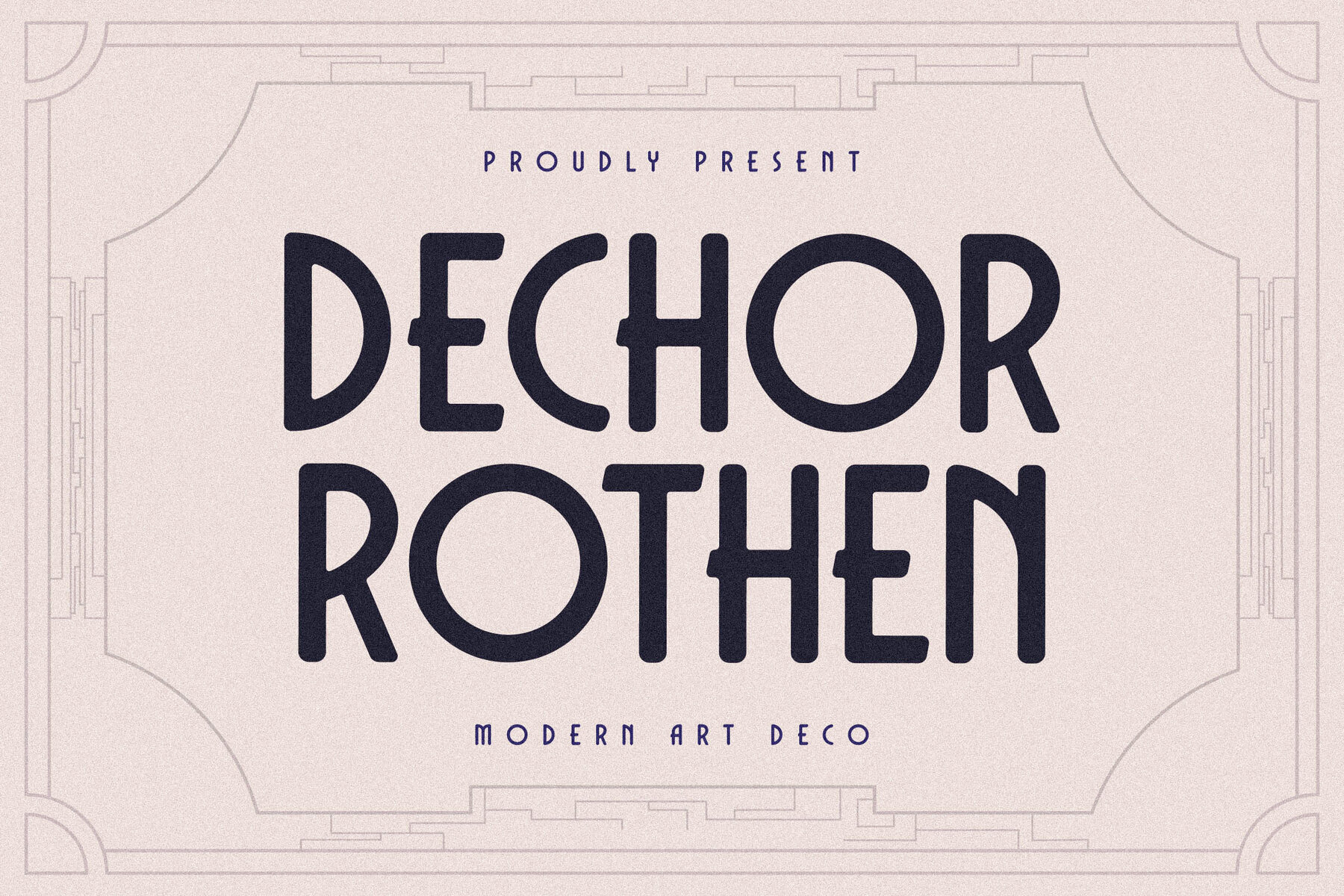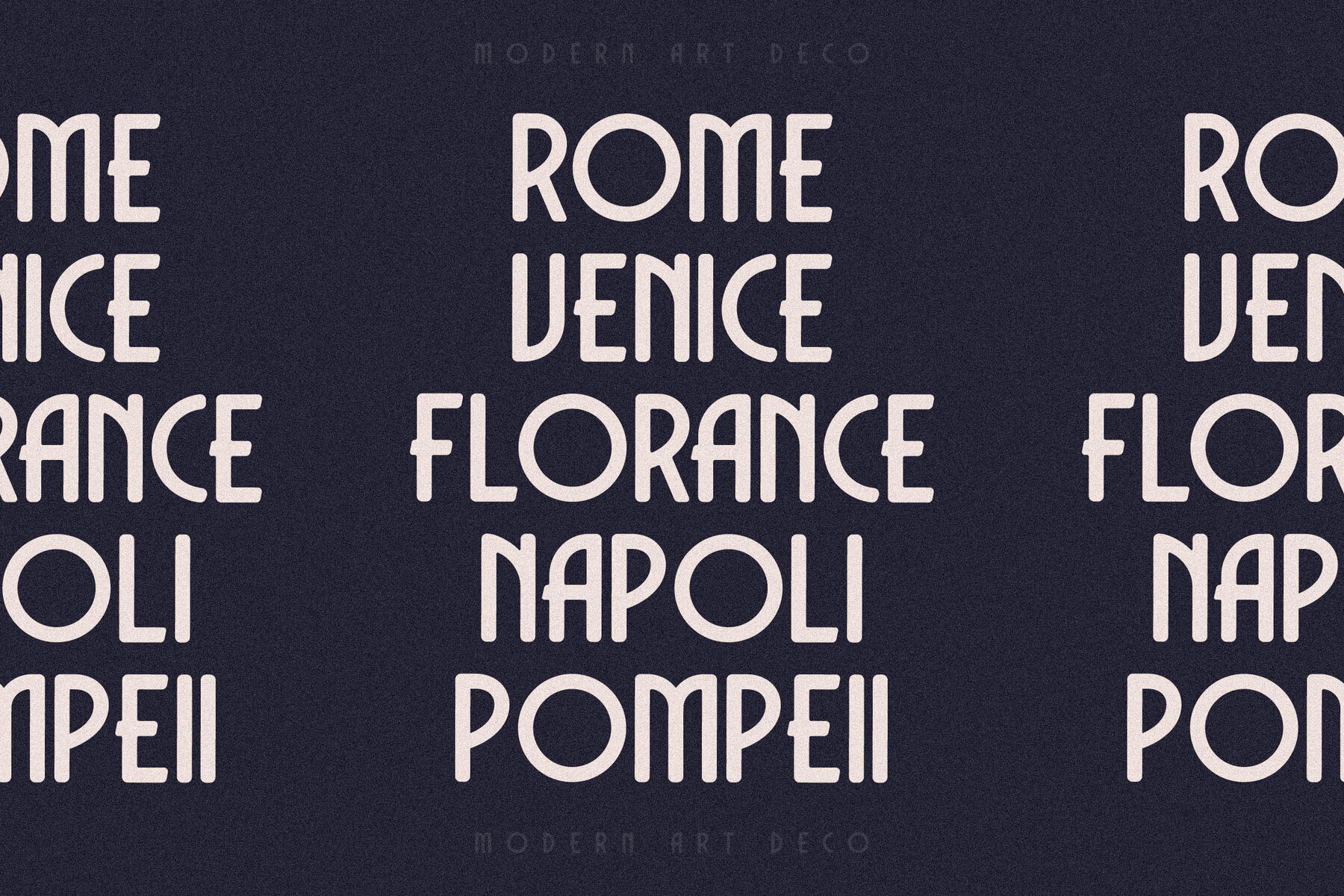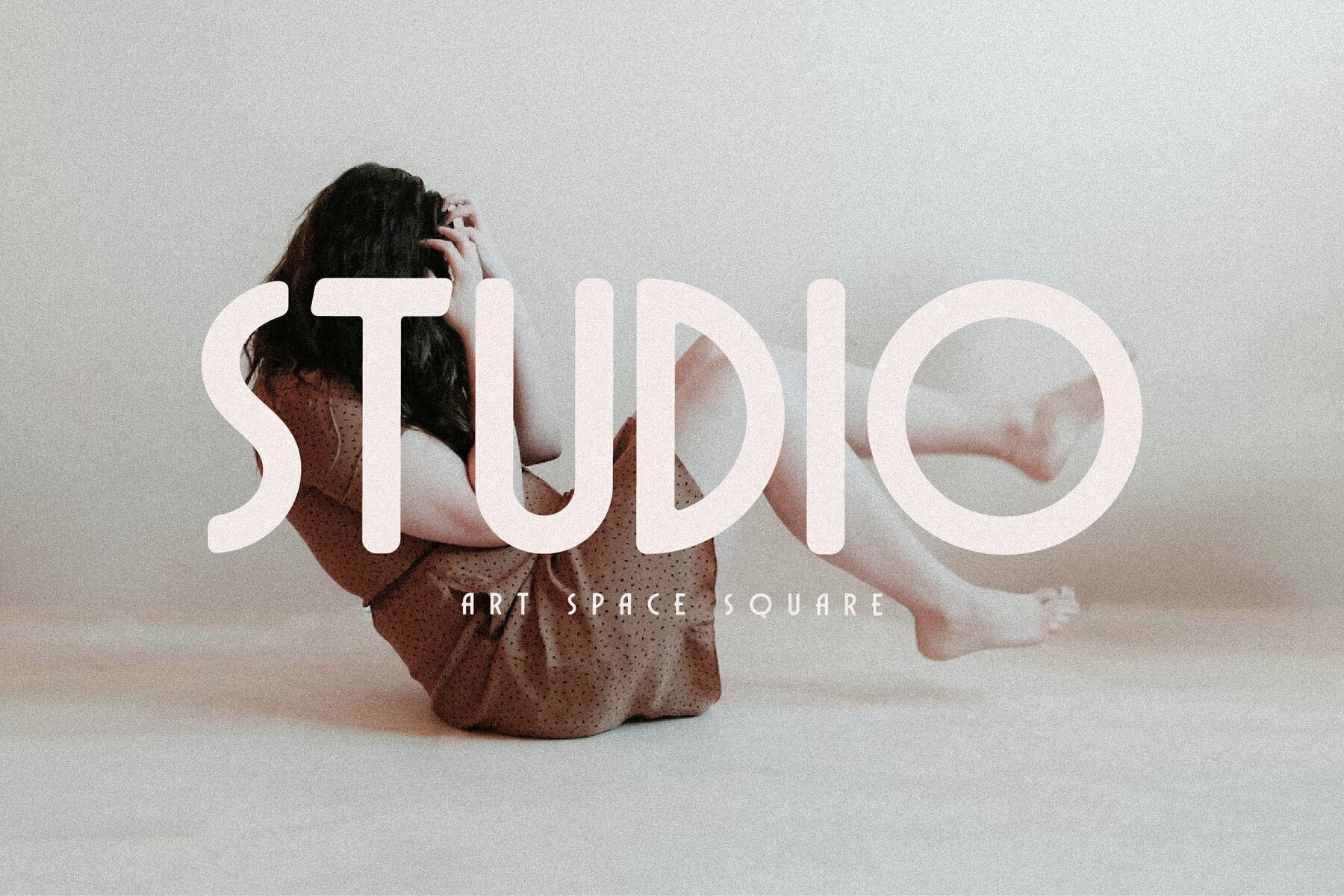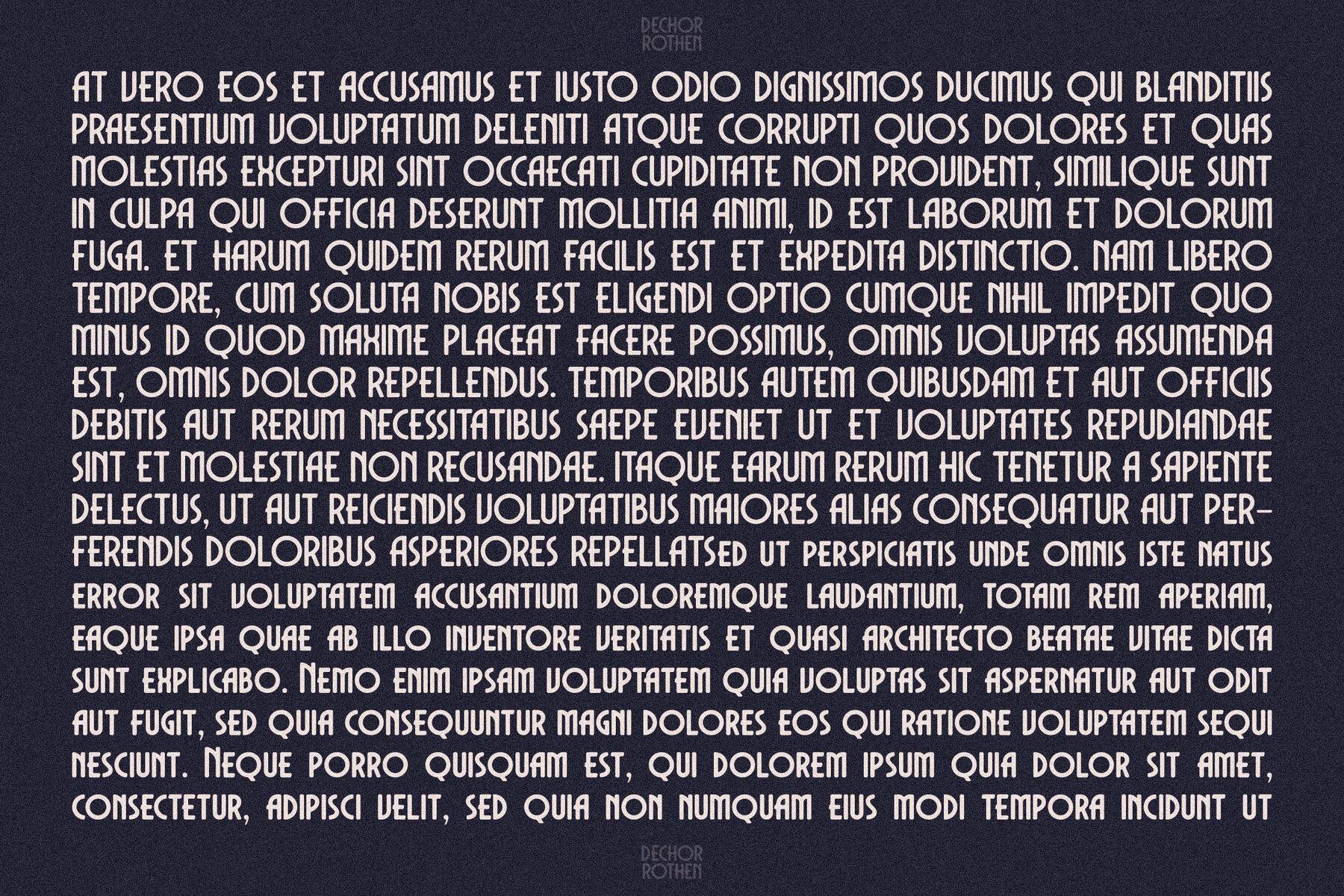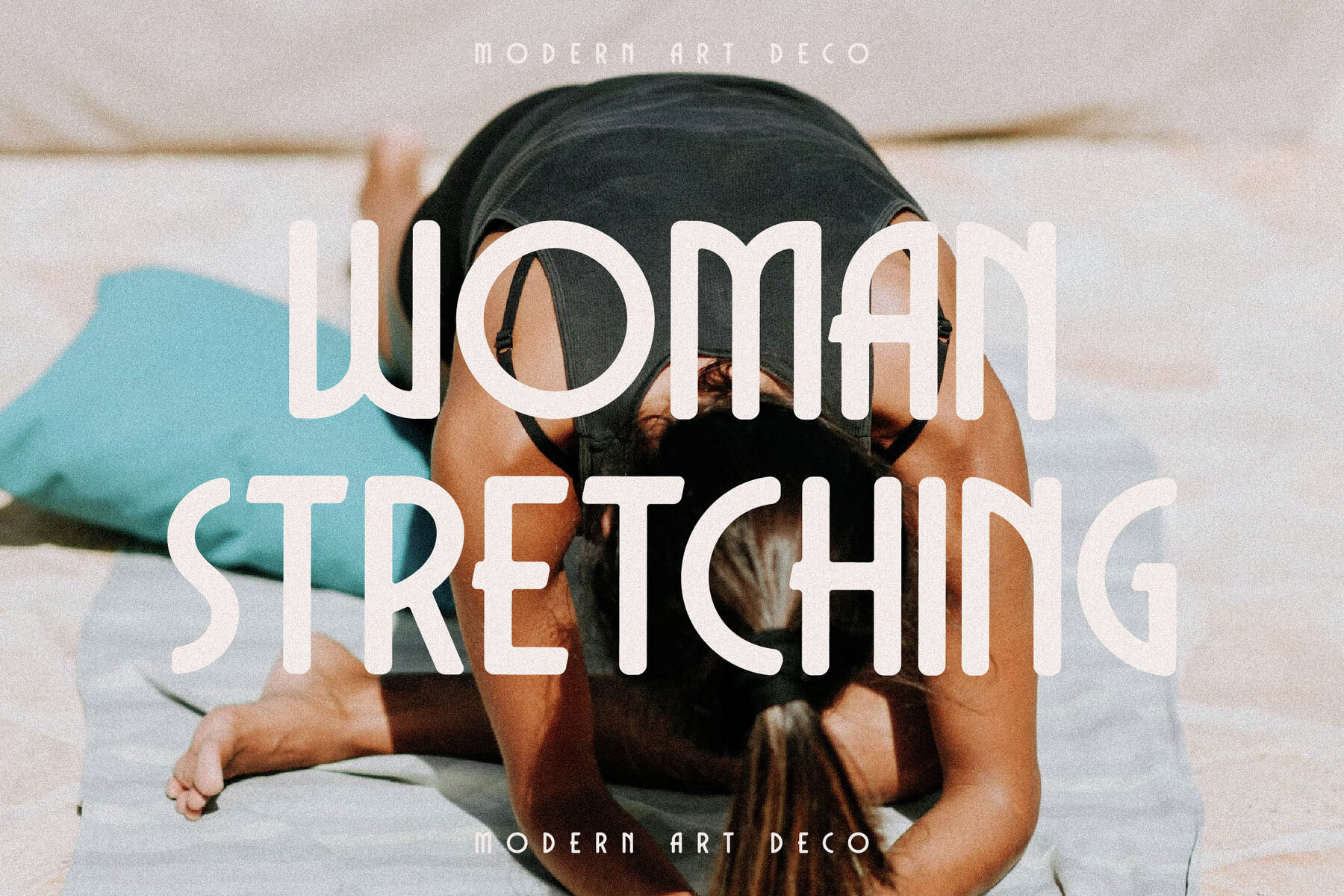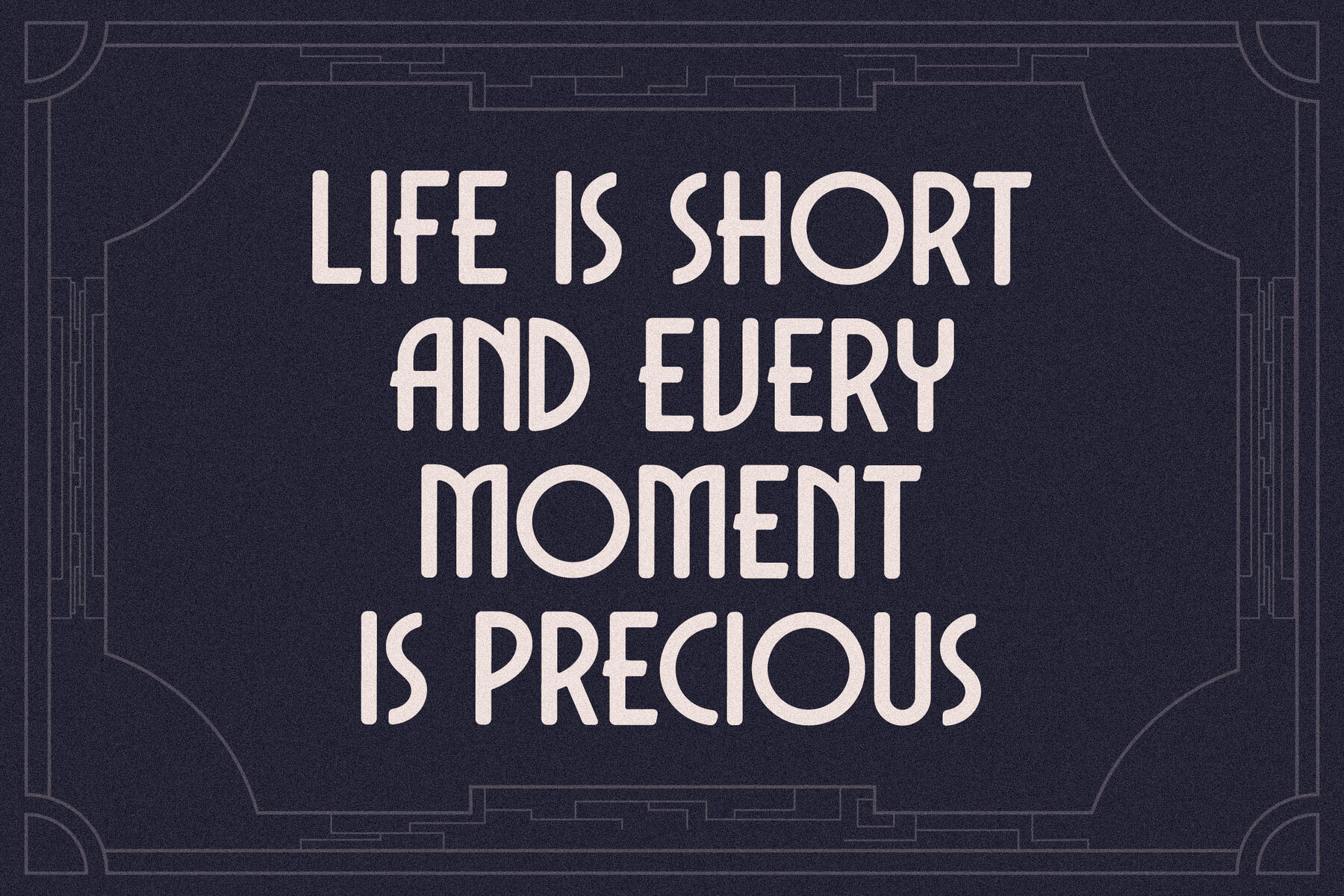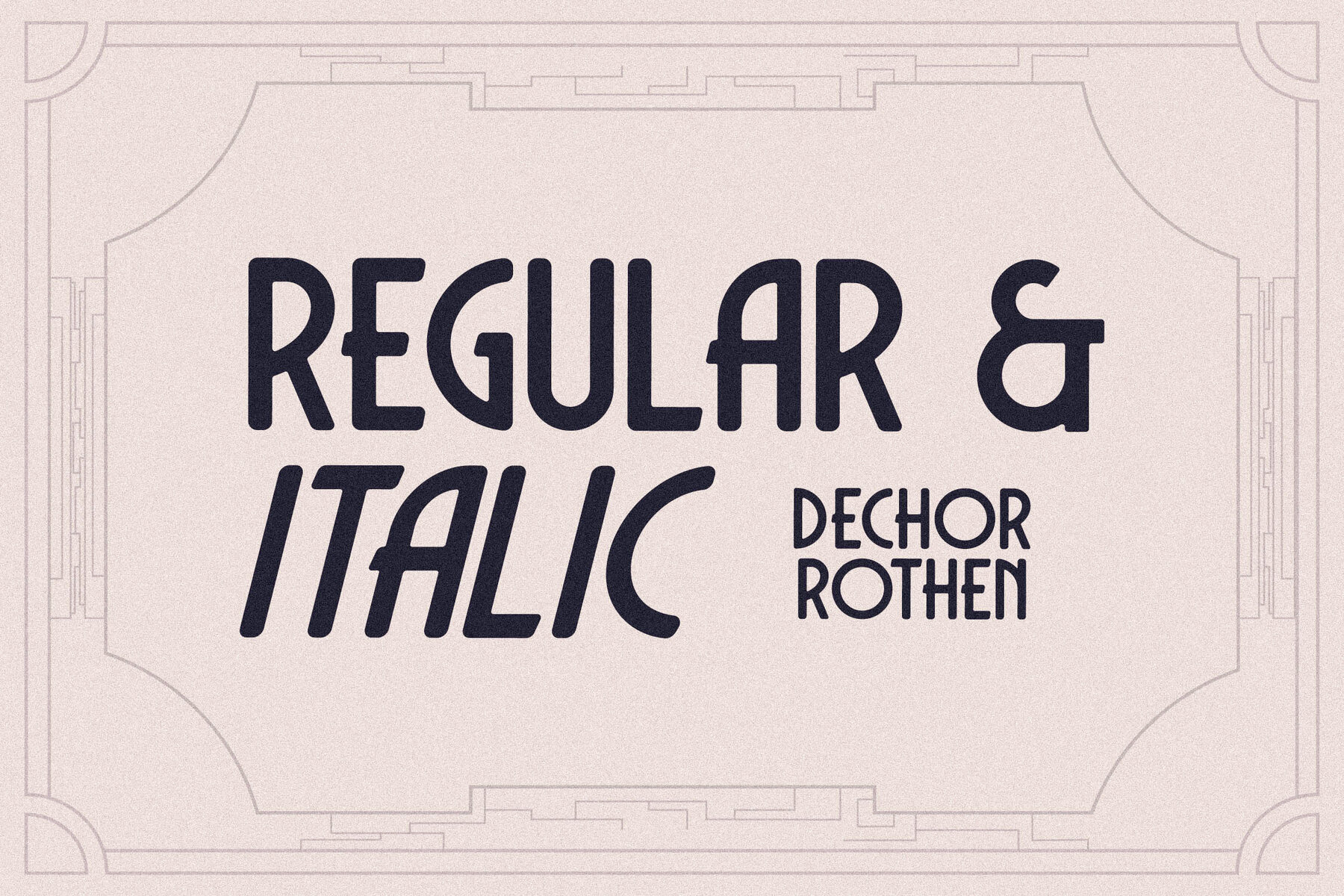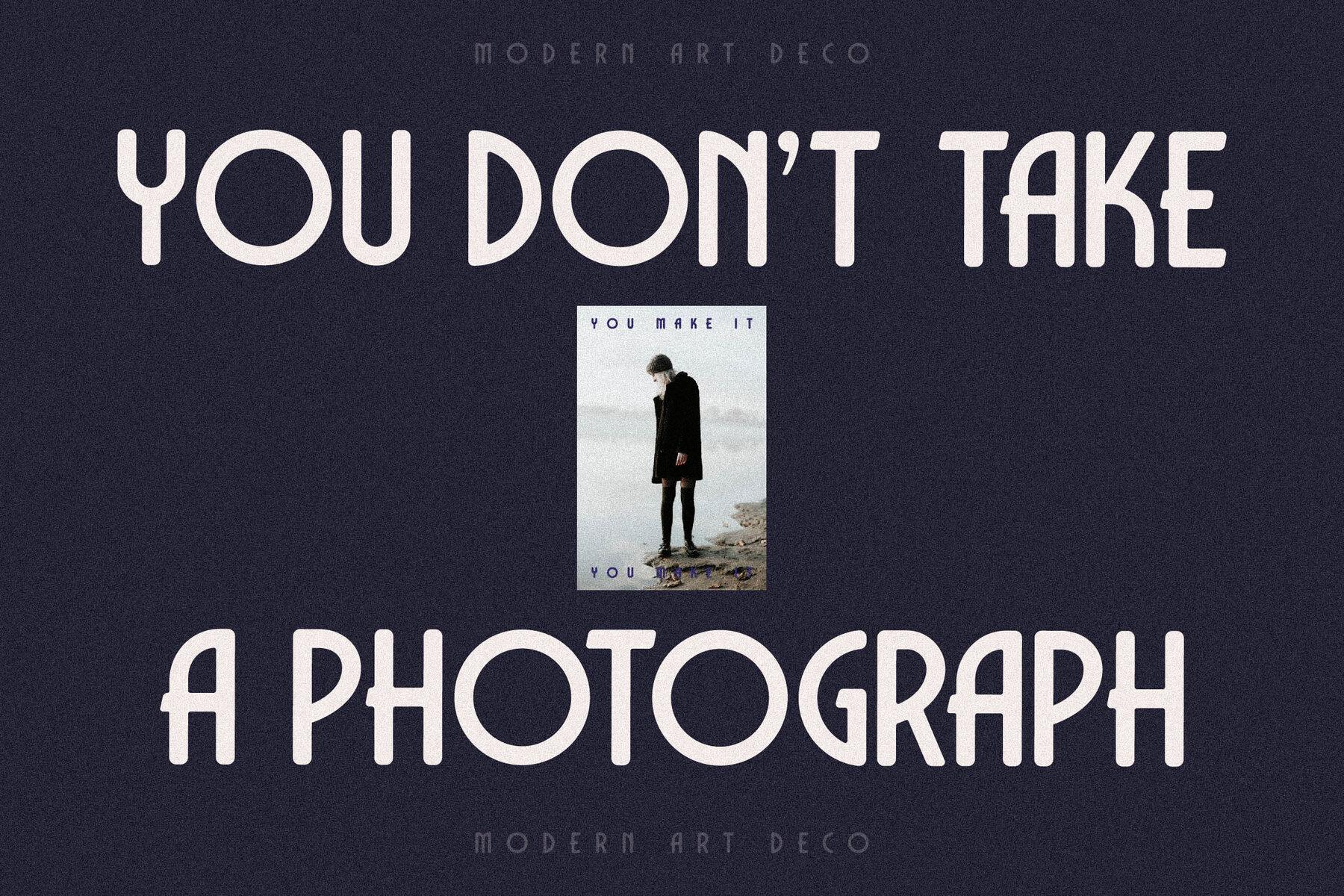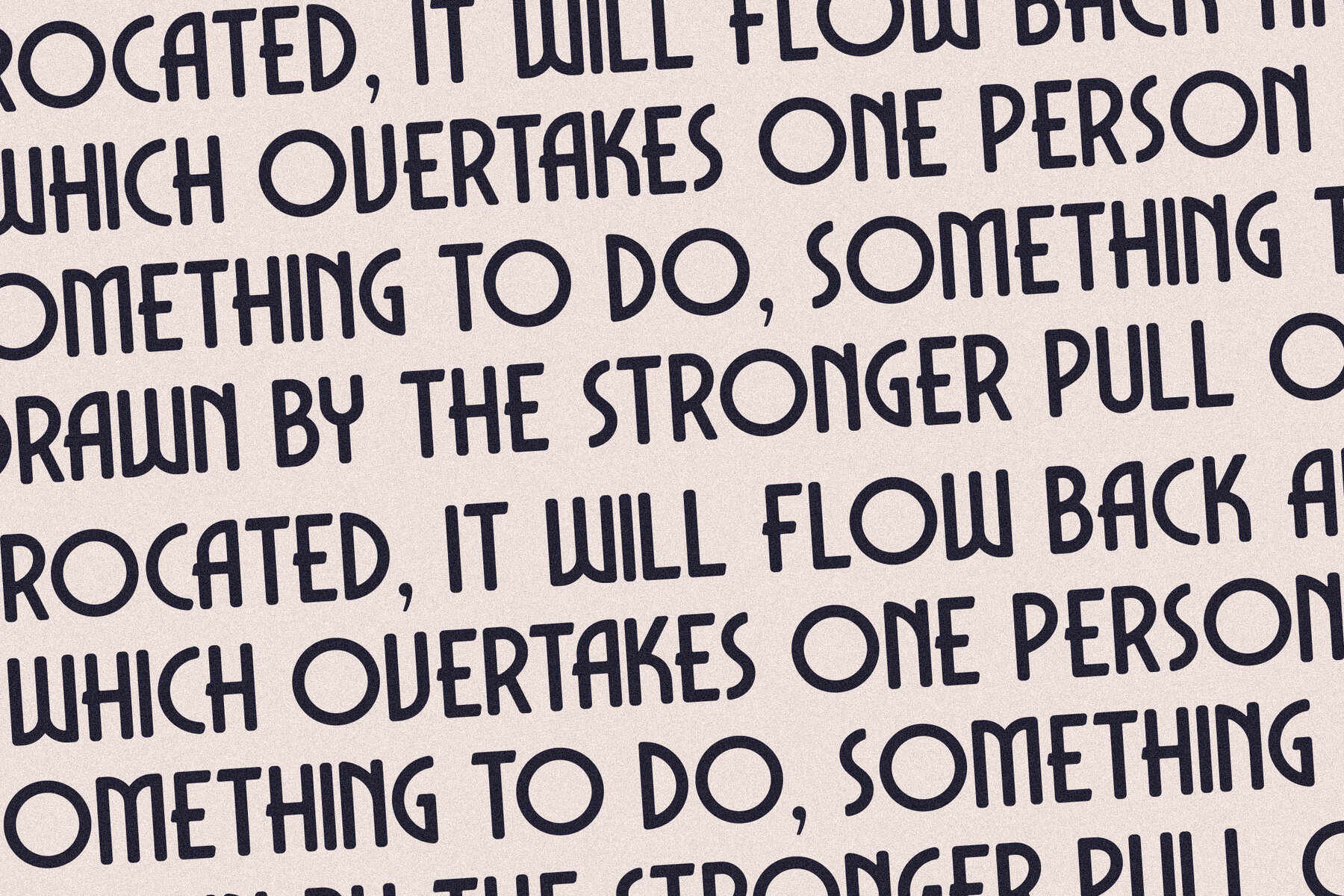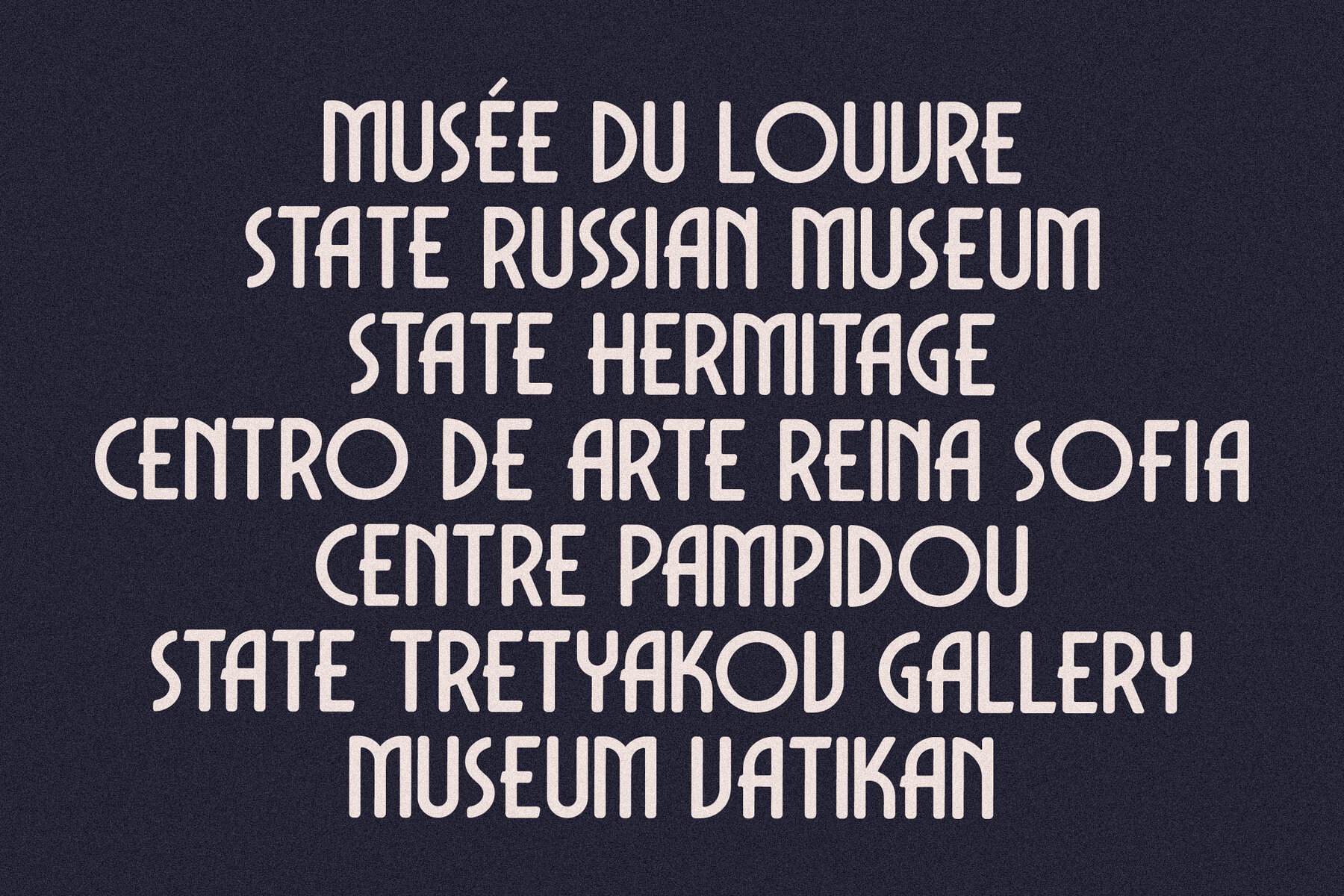
DECHOR ROTHEN Font
Dechor Rothen is a serif typeface that blends modern aesthetics with classic influences, offering a unique style perfect for a wide array of design applications. Whether you're crafting a distinguished logo, designing captivating book and movie titles, or developing a high-fashion brand, this typeface delivers elegance and luxury. Features:Dechor Rothen Typeface: Modern Elegance Meets Classic Design